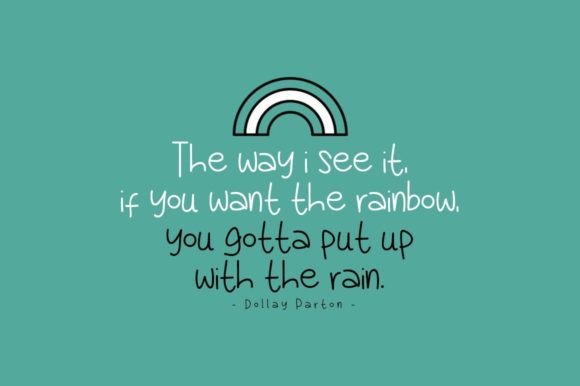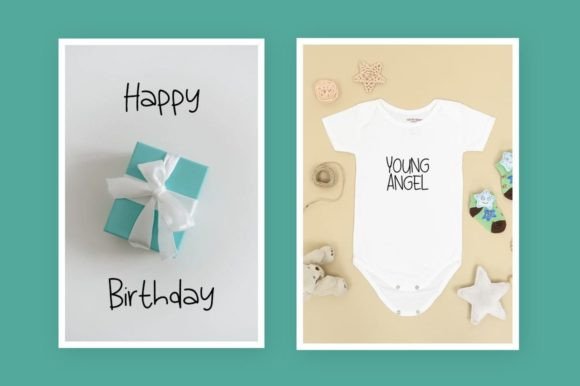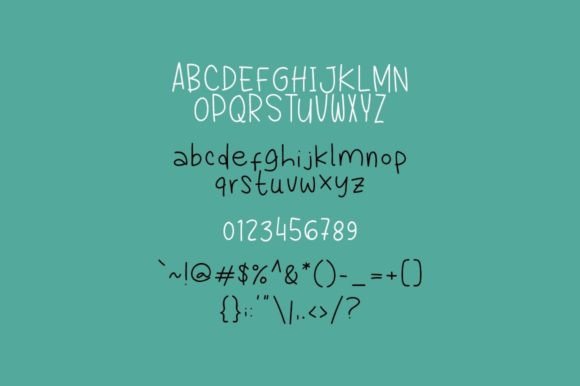
Introduction to Like Slim Font
Do you remember that moment when you finally nailed the perfect design for your creative project? The one that makes you feel like you’re on top of the world? For designers, those moments are priceless, and they often come down to having the right tools. And that’s exactly where the Like Slim Font comes in – a game-changing, high-quality, handwritten font that’s about to revolutionize your design process.
Whether you’re working on a magazine cover, a poster, or a logo, the Like Slim Font is the perfect design resource to take your project to the next level. With its elegant, modern look and transparent background, this font is a must-have for any designer looking to create stunning, high-quality designs. And the best part? It’s available for free download, making it an invaluable asset for your creative toolbox.
Key Features of Like Slim Font
- High quality, clean design ideal for creative projects and presentations
- Designed with a modern and sleek aesthetic, perfect for digital and print media
- Easy to customize and edit, making it a great choice for designers and typographers
- Comes with a comprehensive character set, including uppercase and lowercase letters, numbers, and punctuation marks
Honest Review: Like Slim Font
As a designer, I’m always on the lookout for high-quality design resources to elevate my creative projects. Recently, I stumbled upon Like Slim Font, a free download that caught my eye.
- ✨ Sleek and modern aesthetic that’s perfect for minimalist designs
- ✨ Clean and simple typography that’s easy to read
- ⚠️ Limited font weights and styles, which may not be suitable for complex designs
- ⚠️ Not as versatile as some other fonts I’ve used in the past
Overall, I’d say Like Slim Font is a solid choice for designers looking for a simple, modern font. While it may not be the most versatile option, it’s free and high-quality, making it a great resource to have in your toolkit.
Like Slim Font is a high-quality, free design resource ideal for creative projects that require a modern and sleek aesthetic. This font features a transparent background, making it versatile for use in various design applications.
Like Slim Font is suitable for a variety of design projects, including social media graphics, business cards, and product labels. Its modern and sleek aesthetic makes it perfect for branding and marketing materials.
Comparison to Like Slim Font: Pacifico Font has a more elegant and refined feel compared to Like Slim Font, which has a more modern and minimalist look. Pacifico Font is also more suitable for use in headings and titles, while Like Slim Font is better suited for body text.